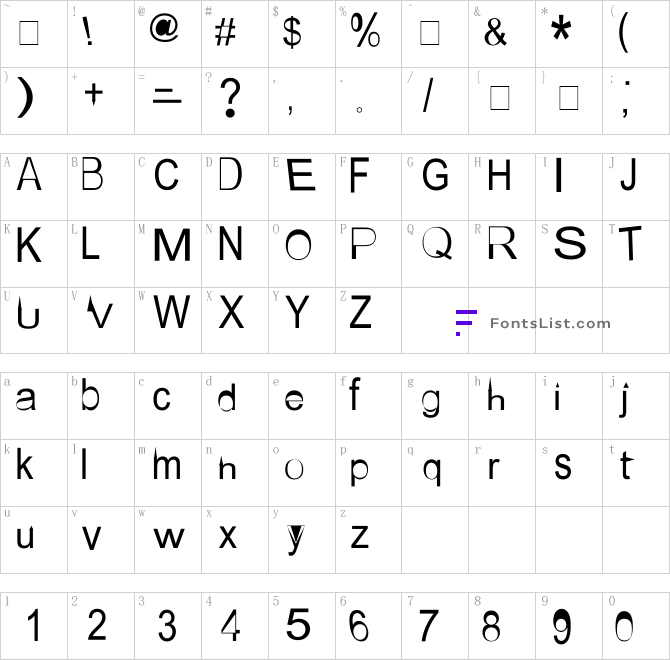
AEZ-steeple.ttf is a very beautiful artistic font, AEZ-steeple.ttf is widely used in the design and printing of various books and pictures,AEZ-steeple.ttf has a strong visual impact,AEZ-steeple.ttf is a commonly used font in newspapers, magazines and books, and is used in posters, e-commerce Poster design, store design, logo design, font design and other fields.AEZ-steeple.